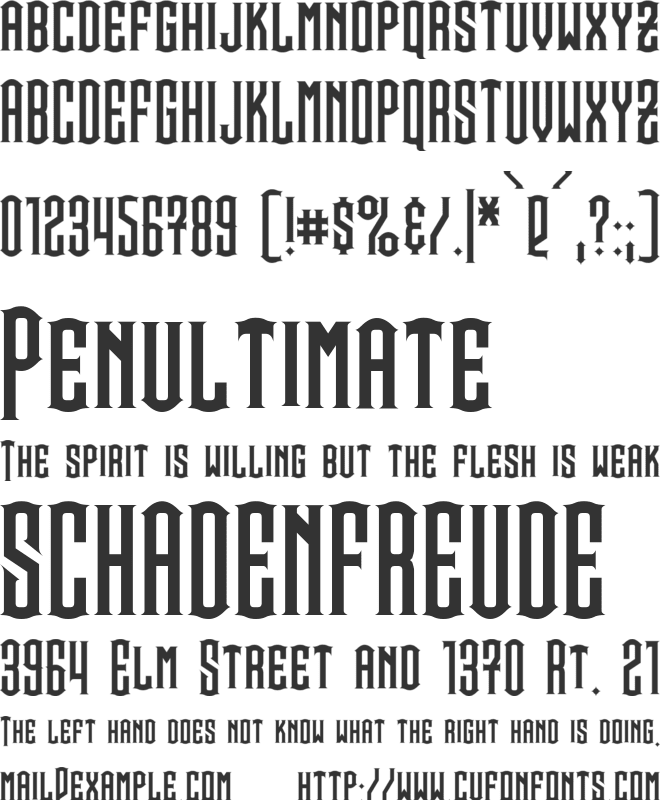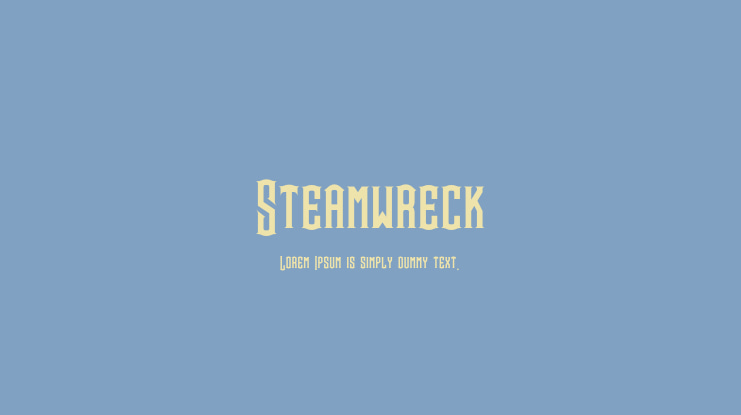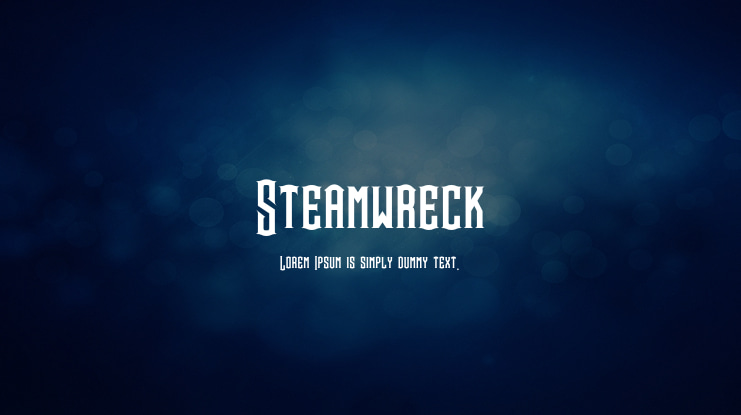
Steamwreck Font Family
Neale Davidson
Steamwreck is a tall, thin, ‘western-style’ wrought-iron typeface with worked-details to evoke a ‘steampunk’ feel to the text. Includes fill alphabet, extended punctuation, Euro. Includes regular, bold, italic, and bold-italic faces.